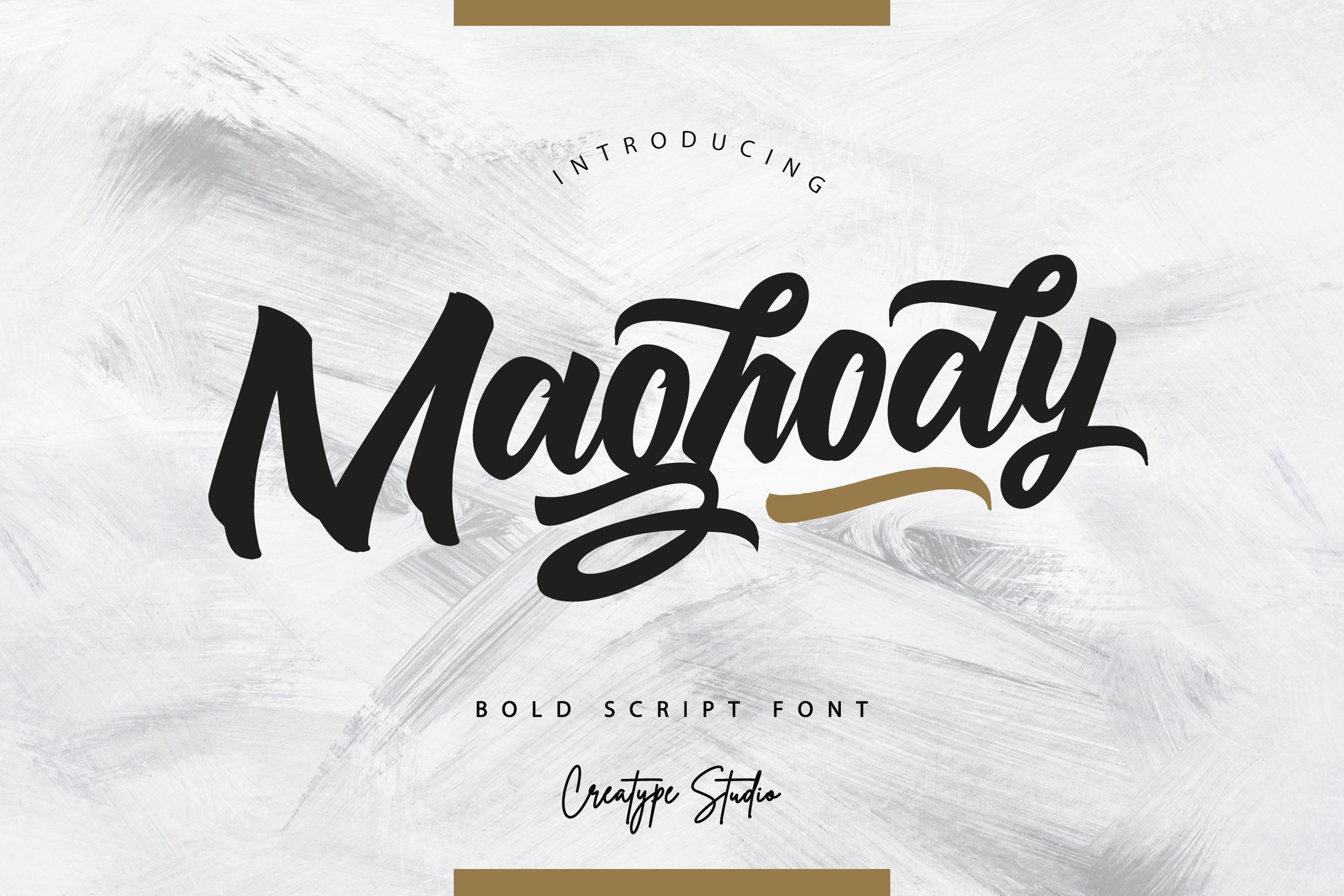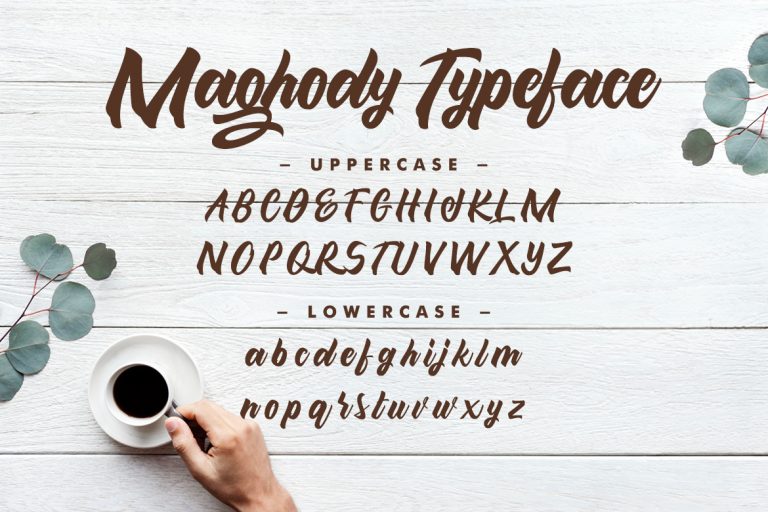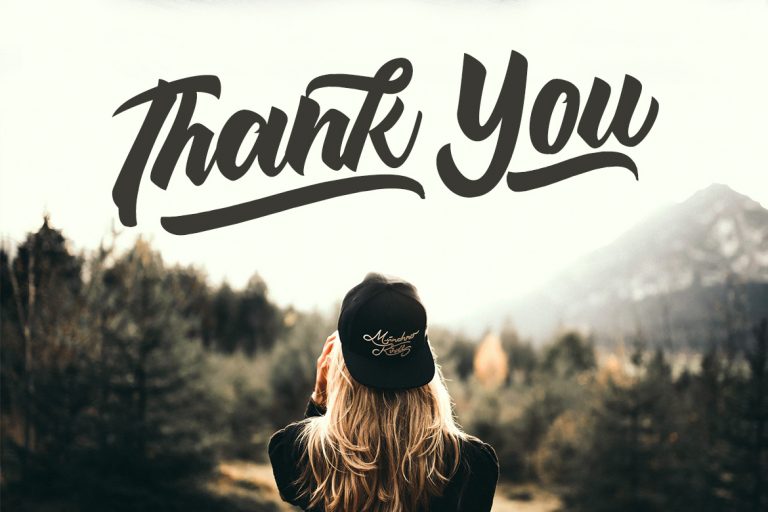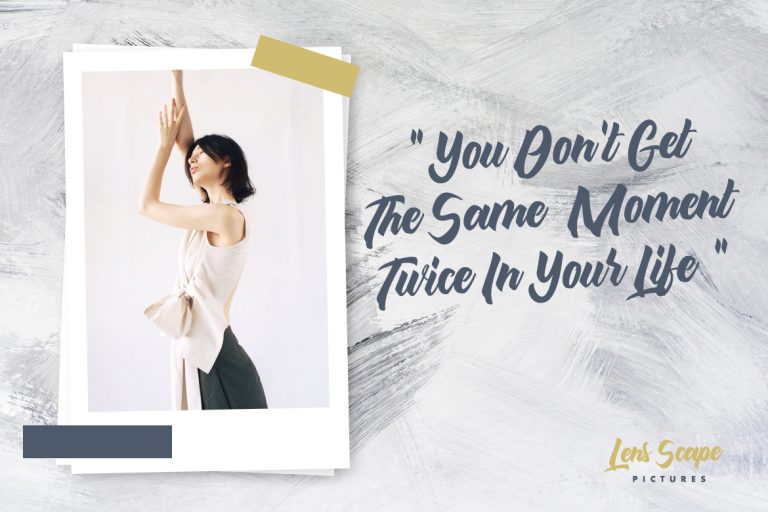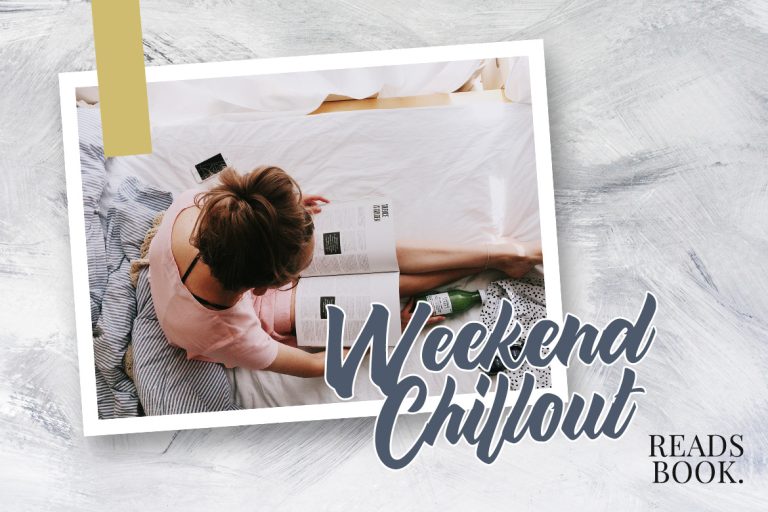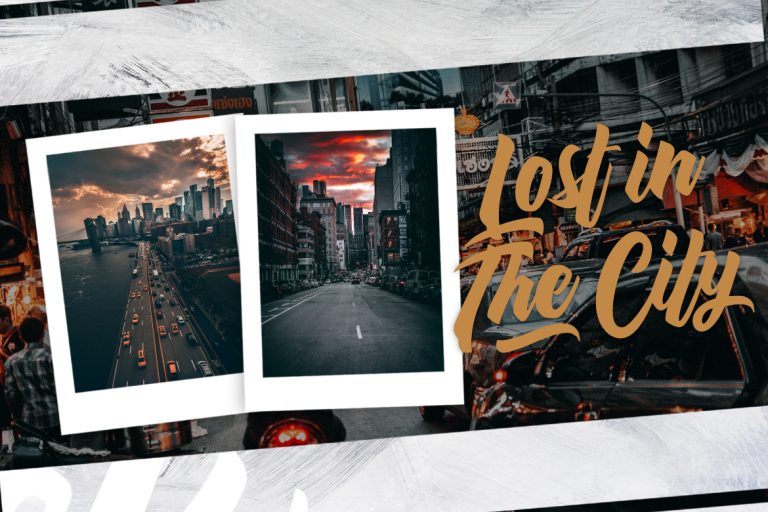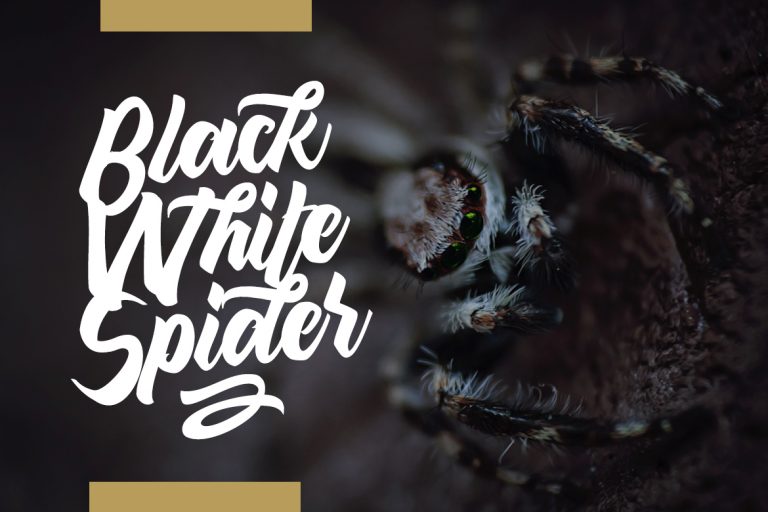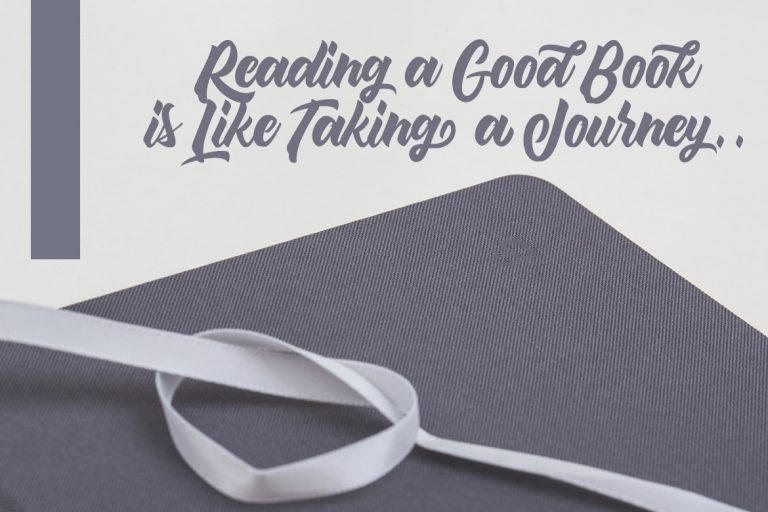
Maghody is a script typeface with bold and strong natural movement, this font is great for your various amazing project.
Maghody is perfect for photography, watermark, social media posts, advertisements, logos & branding, invitation, product designs, label, stationery, wedding designs, product packaging, special events or anything that need handwriting taste.
• More than 300 of glyphs
• Ton of glyphs (include Uppercase, Lowercase, Numerals & Punctuations, Ligature, Swashes)
• Ligature & Stylistic alternate
• Fonts include multilingual support for; Afrikaans, Albanian, Catalan, Danish, Dutch, English, French, Hungarian, Icelandic, Italian, Spanish, Portuguese, German, Swedish, Norweigen, Polish, Indonesian, Turkish, Zulu
Maghody Script